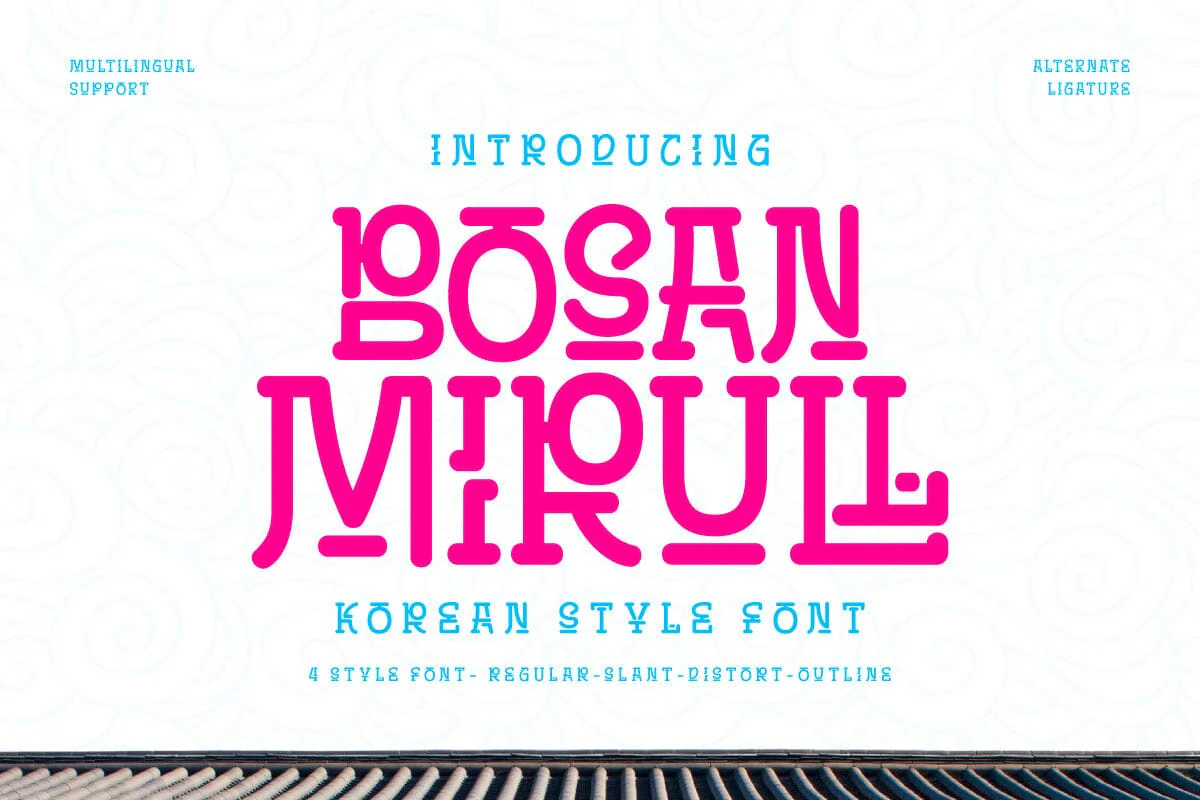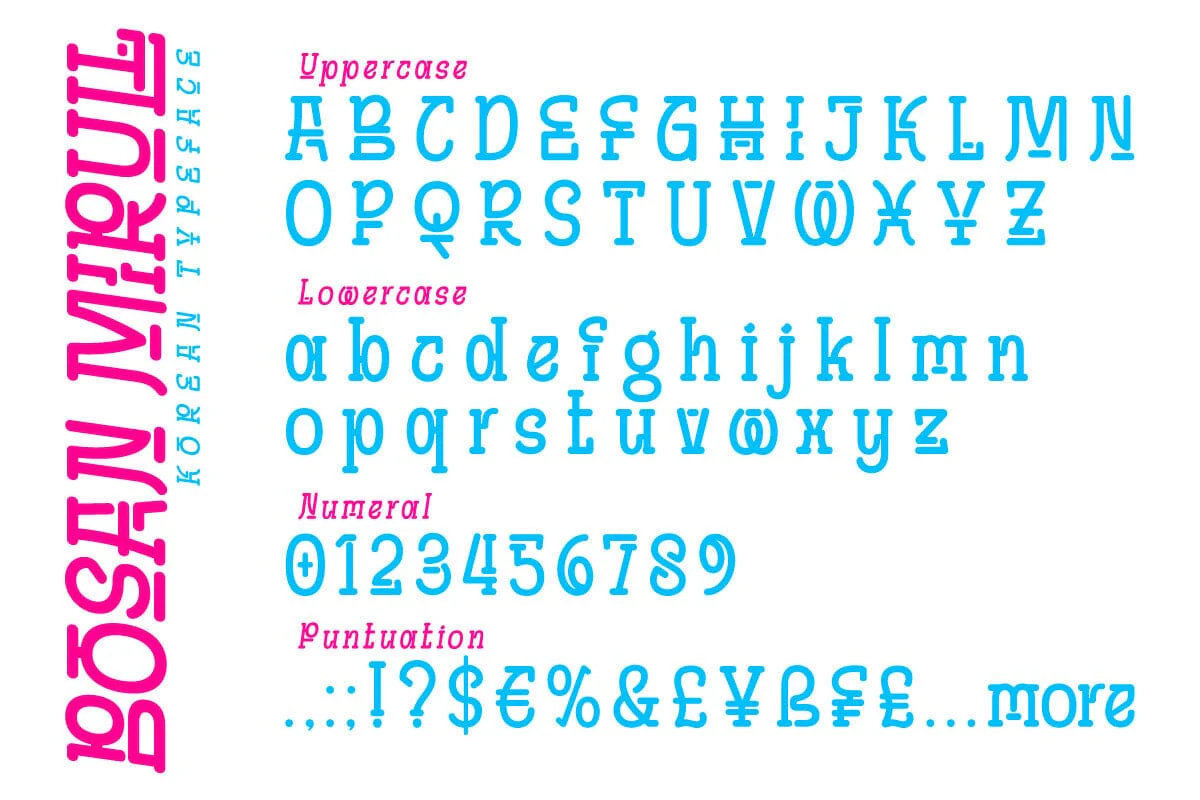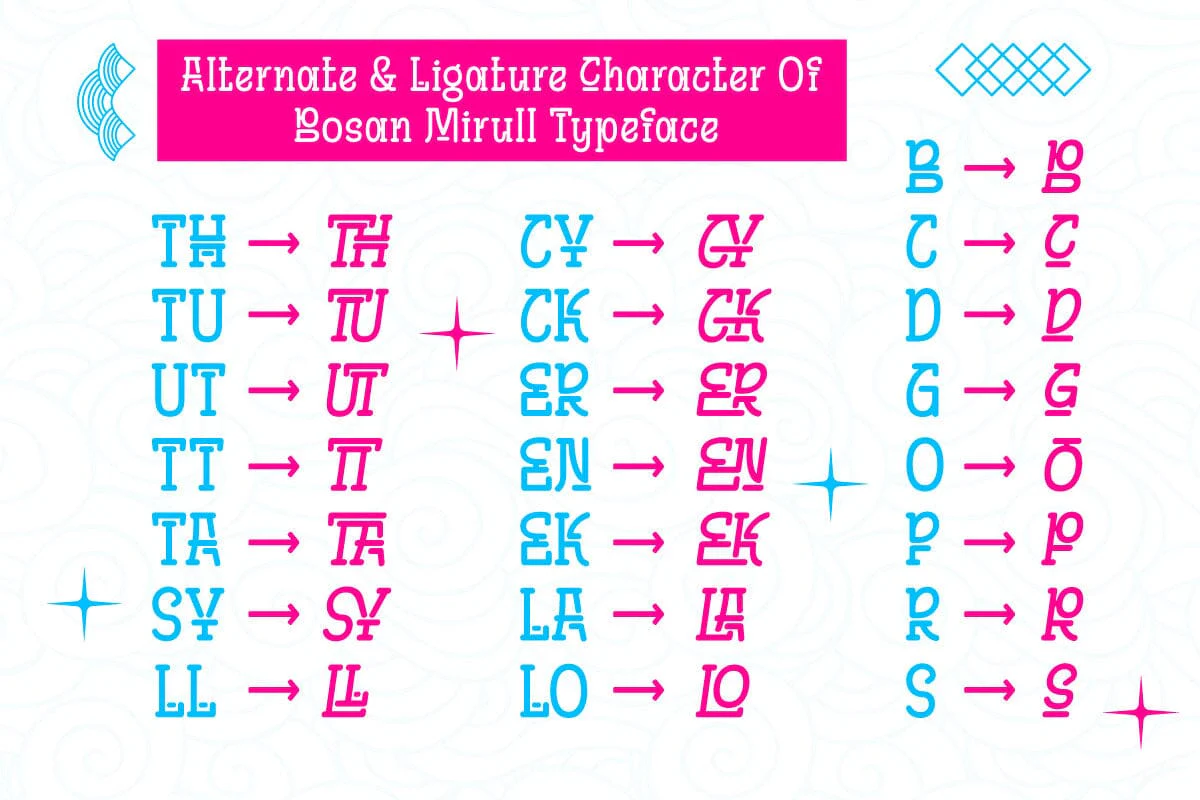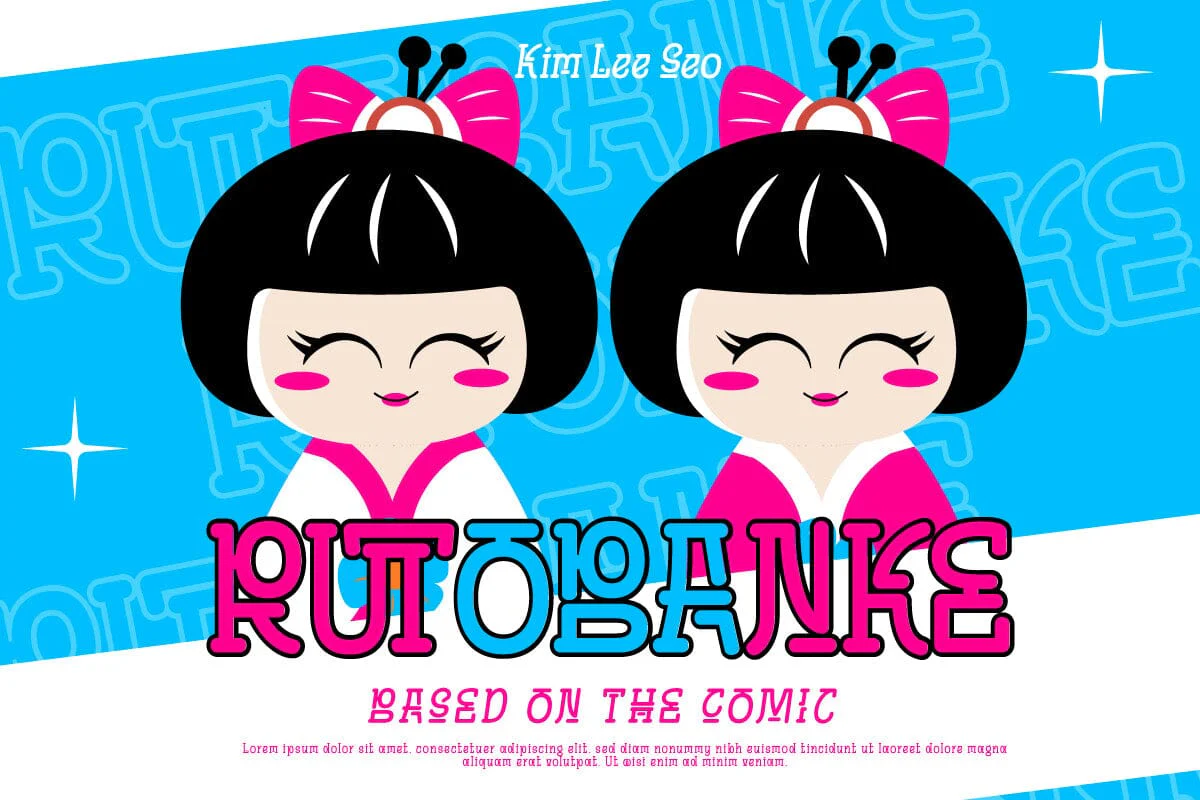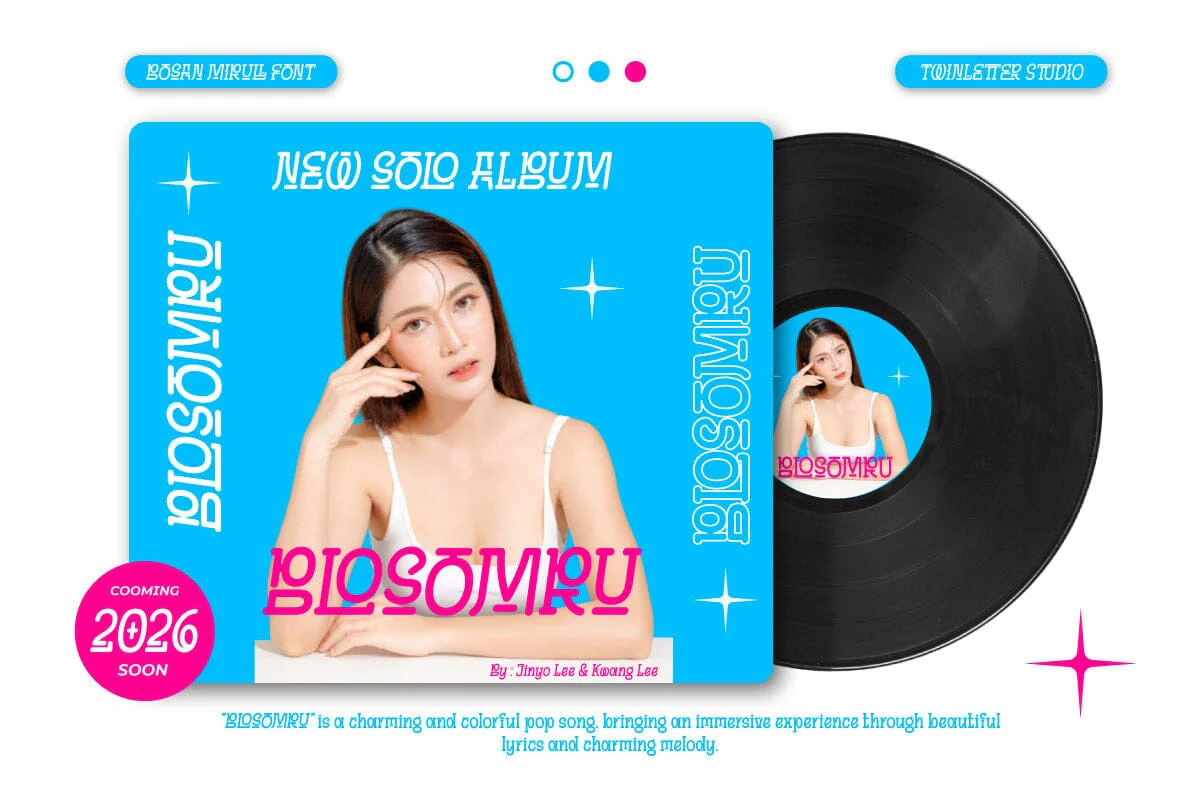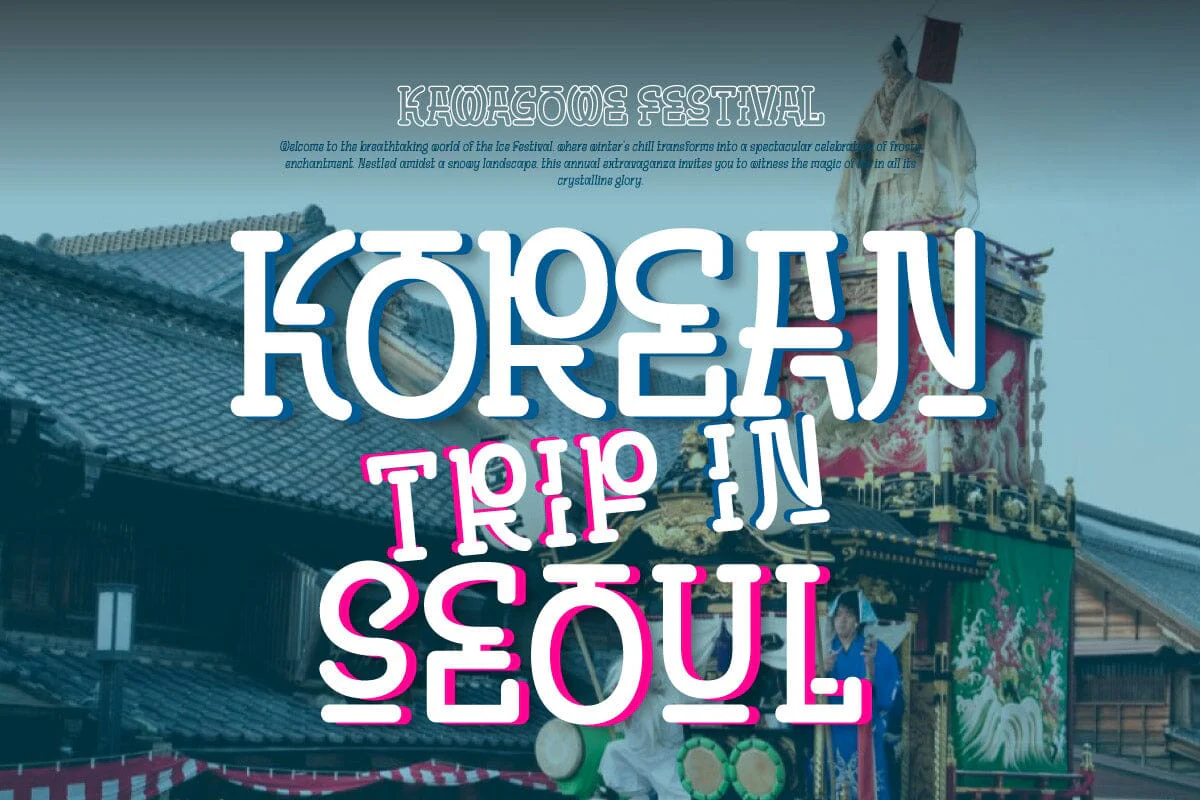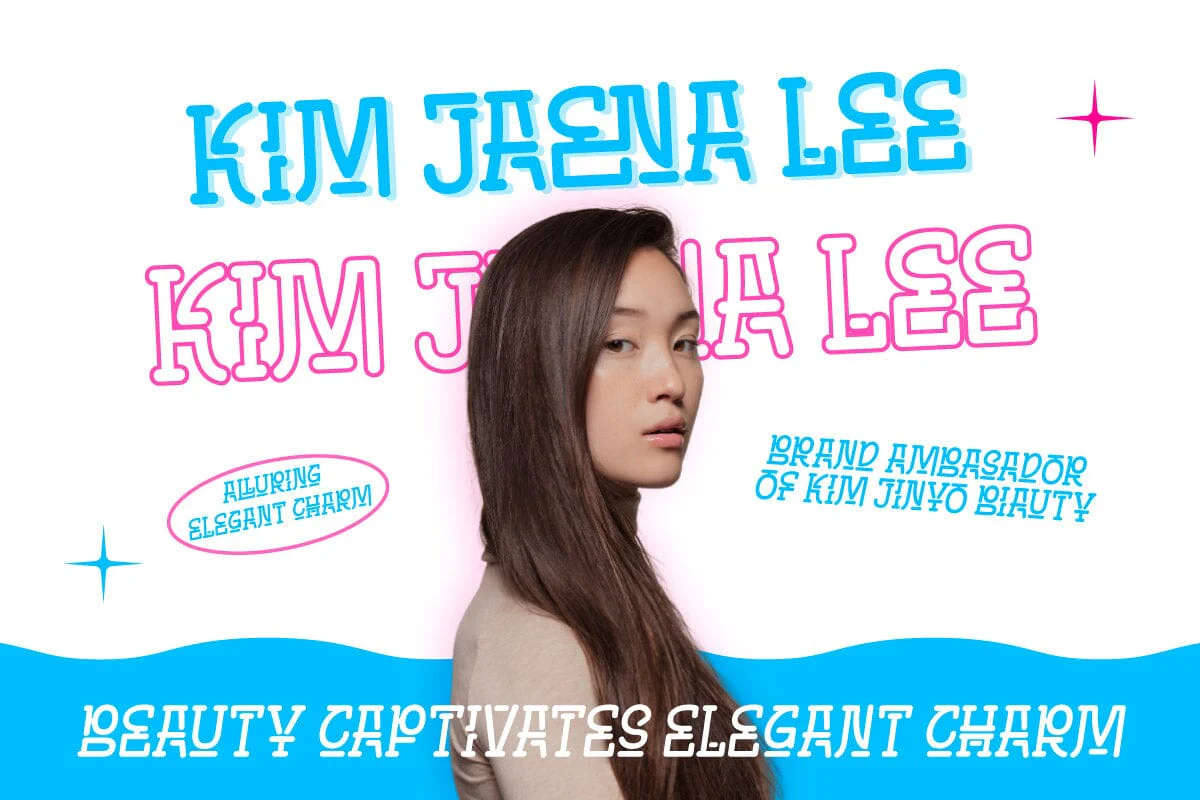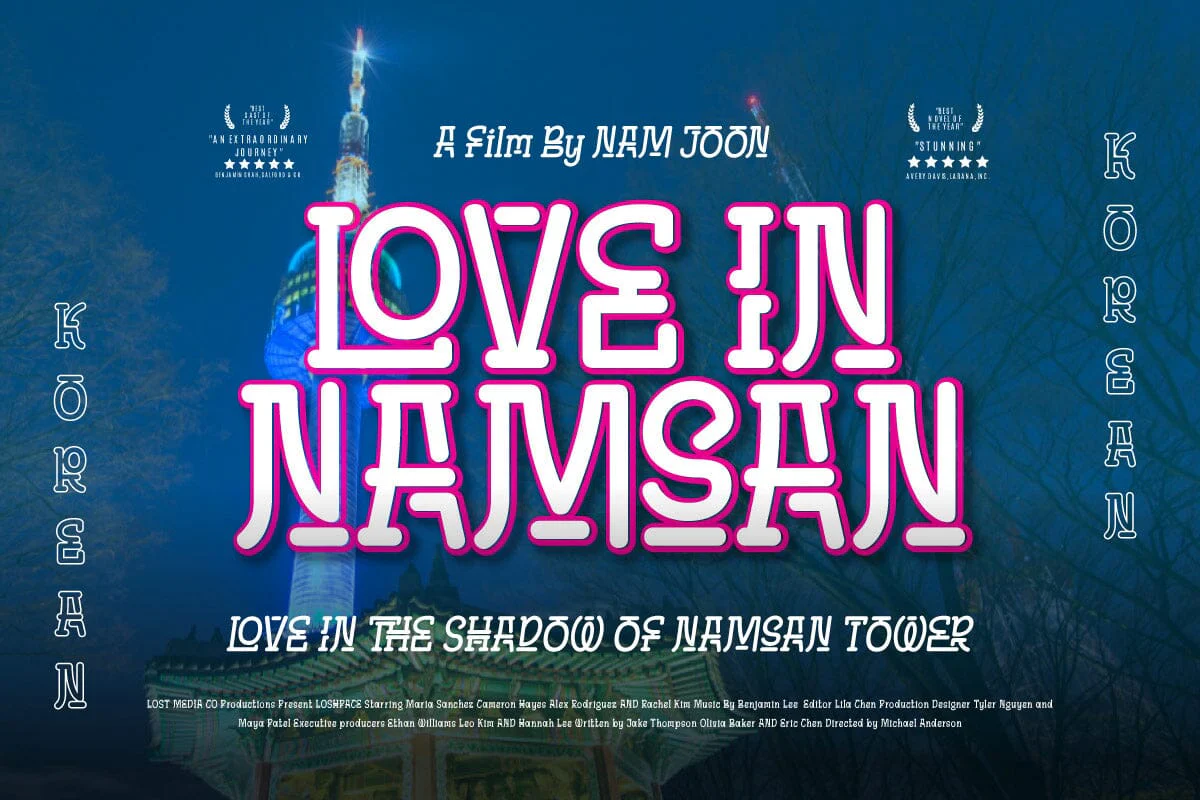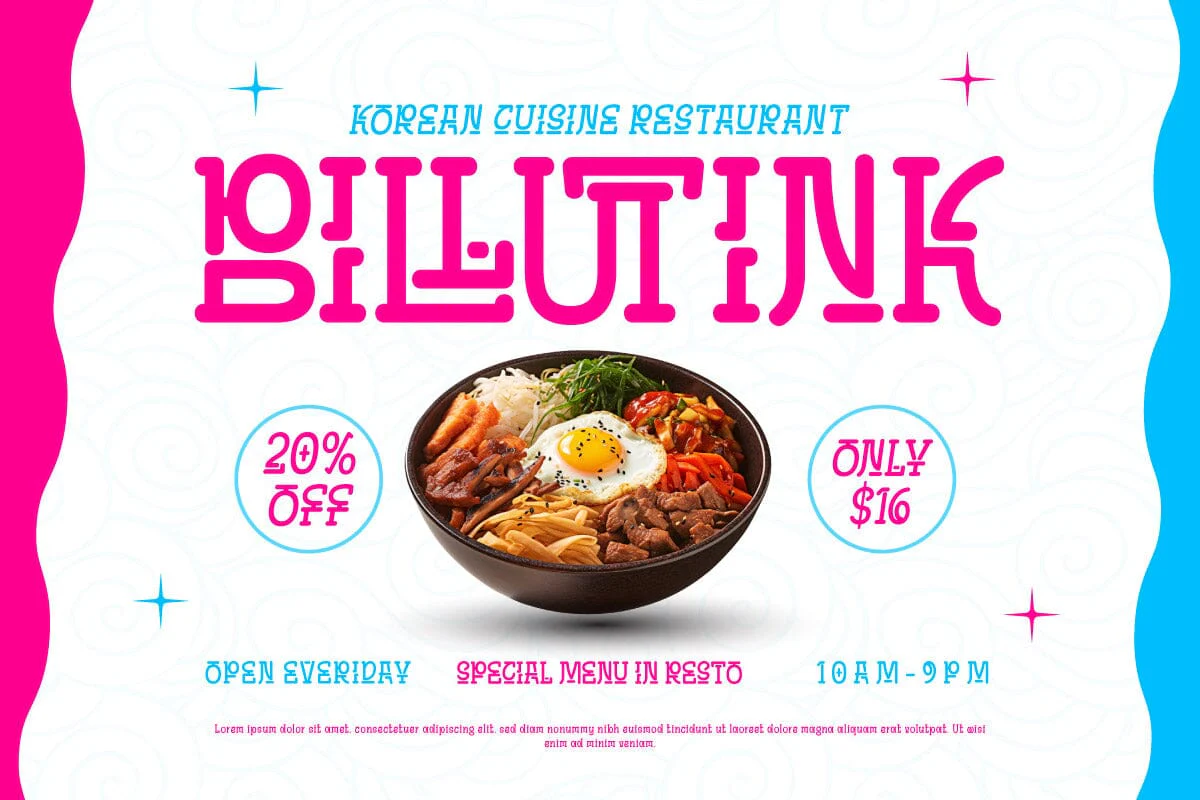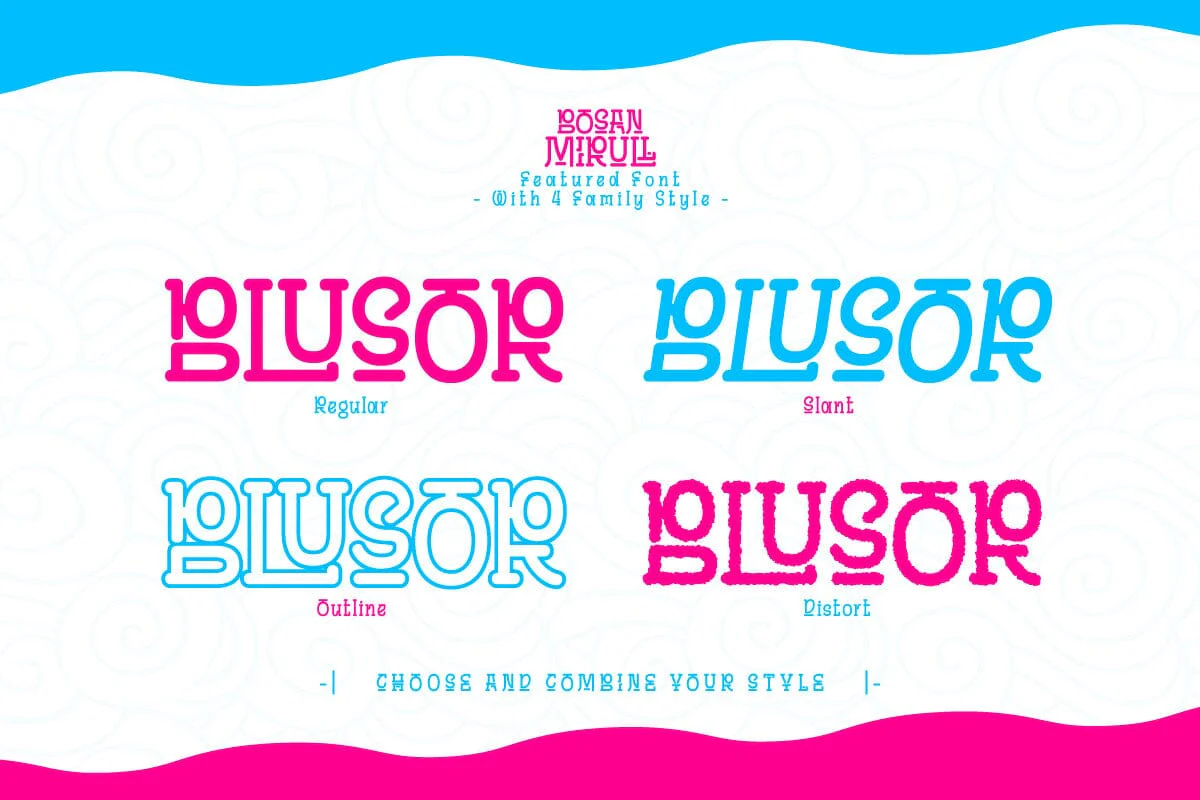
Bosan Mirull - Korean Style Font
Embrace Korean elegance with Bosan Mirull, a stunning font with a charming Asian twist. Each curve of the letters expresses the softness and charm of Korea's rich culture, creating an atmosphere flowing with natural beauty. Bosan Mirull is the right choice for branding projects, logo typography, and special events that want to embrace the beauty of Asia in their designs. With a design that is easy to understand and learn, this font brings unique Korean elements to every work. Let Bosan Mirull be your guide on a journey through the fascinating culture of Korea. Bring a calming and mesmerizing feel to your designs, making each of your projects a representation of timeless beauty. What’s Included: - File font OTF, TTF, WOFF, WOFF2, CSS, HTML - All glyphs and variation - We highly recommend using a program that supports OpenType features and Glyphs panels like many Adobe apps and Corel Draw so that you can see and access all Glyph variations. - PUA Encoded Characters – Fully accessible without additional design software. - Fonts include Multilingual support